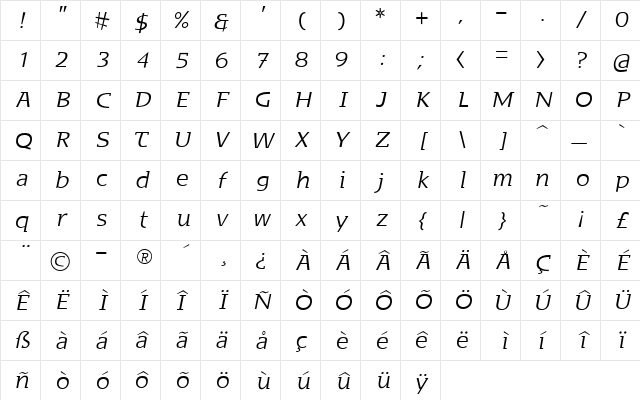
Browser Italic Font Preview
Browser Italic
Browser Italic Font Details
| Foundry | \\ Peter Fraterdeus - |
Design Context for Browser Typeface
Browser is a composed and adaptable typeface that performs quietly and consistently across a wide range of design contexts. The dynamic lean of this cut emphasises speed and emphasis in any layout.